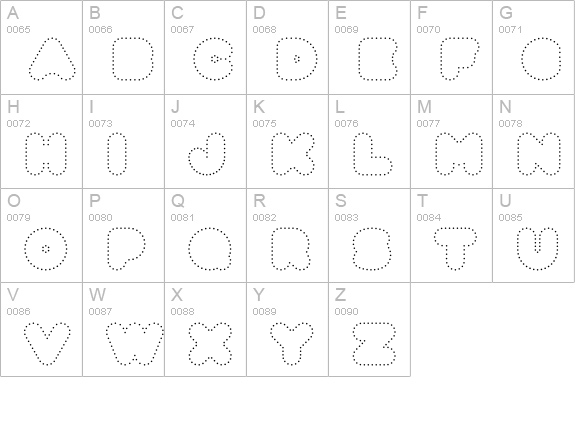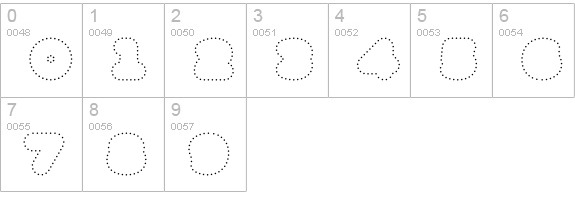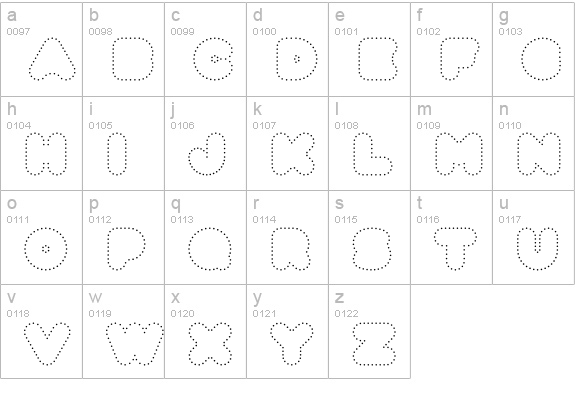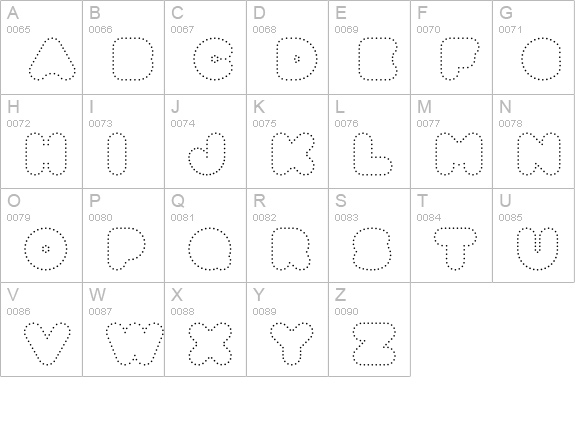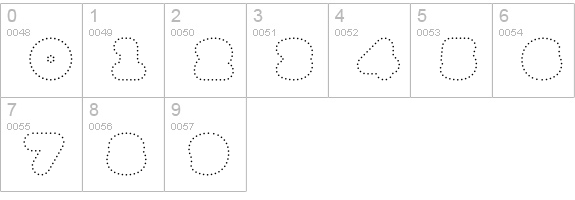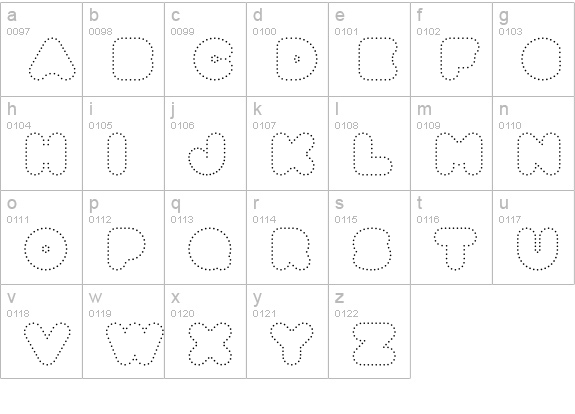
Fun City Level 6 Dots Font Details
Fun City Level 6 Dots font is a playful and unique typeface that will add a touch of whimsy to your designs. With its dotted design, this font is perfect for creating eye-catching headings, posters, and logos. The fun and energetic vibe of the font makes it suitable for a wide range of projects, from children's books to party invitations. The best part? Fun City Level 6 Dots font is available for free download at FontsMarket.com. This means you can easily access this fun and stylish font without any cost. Don't miss out on the opportunity to enhance your designs with this charming typeface - download Fun City Level 6 Dots font today!